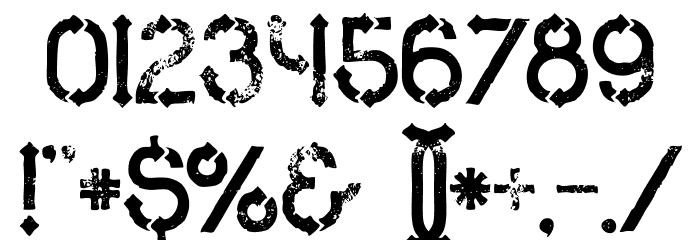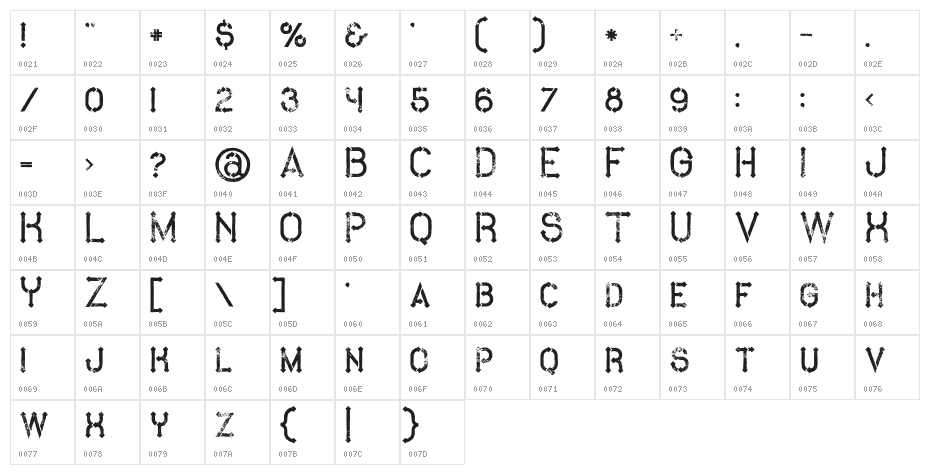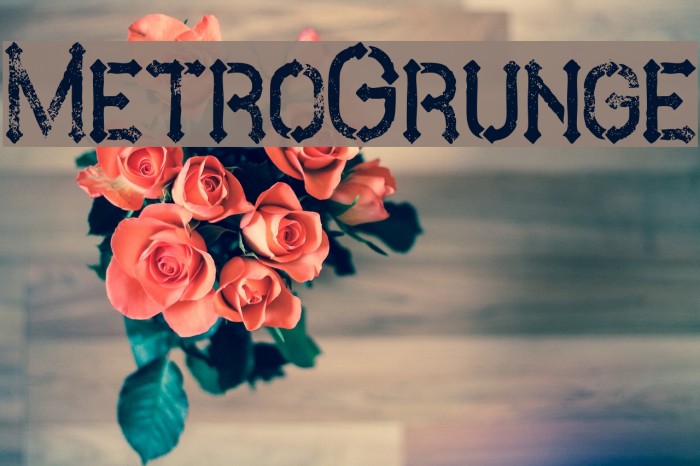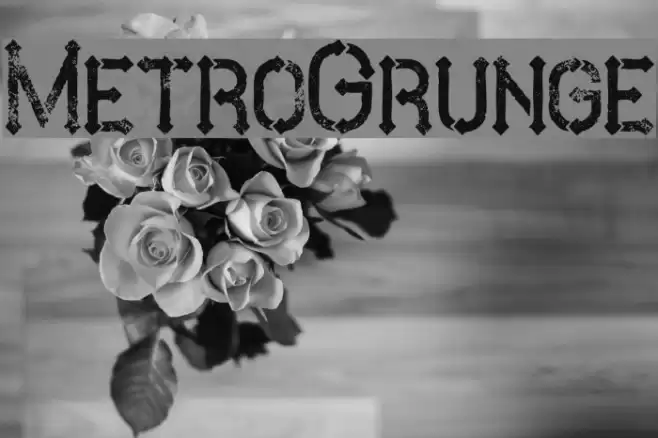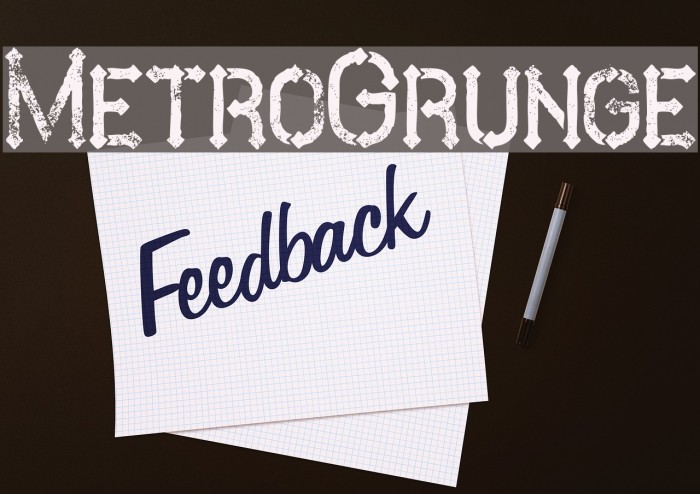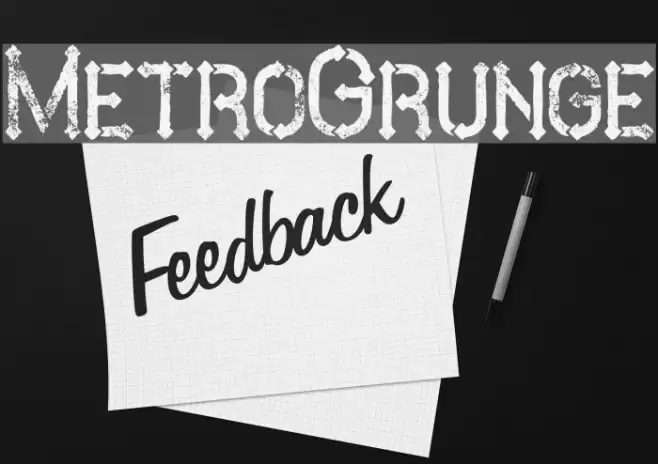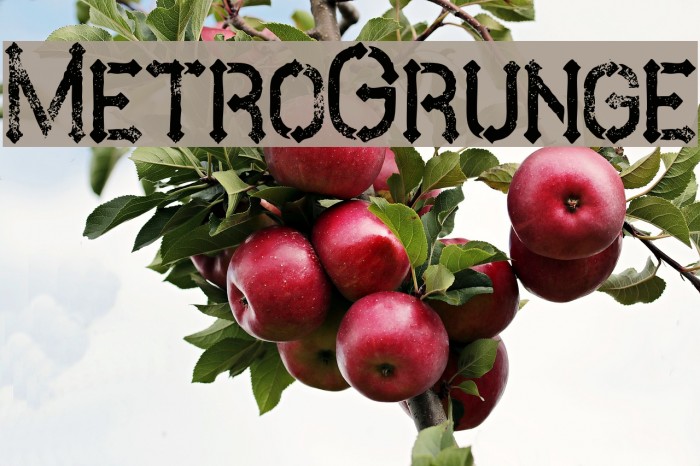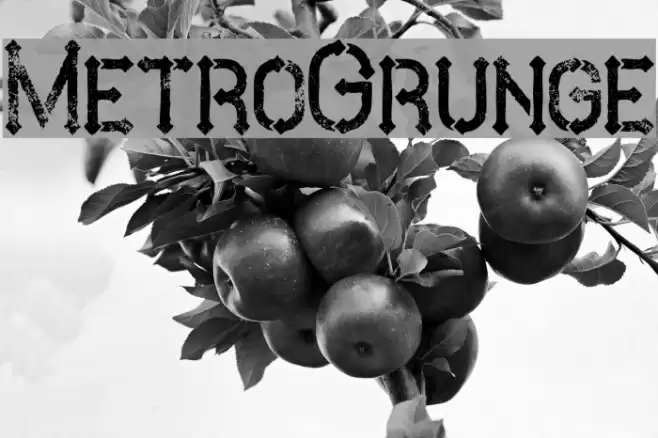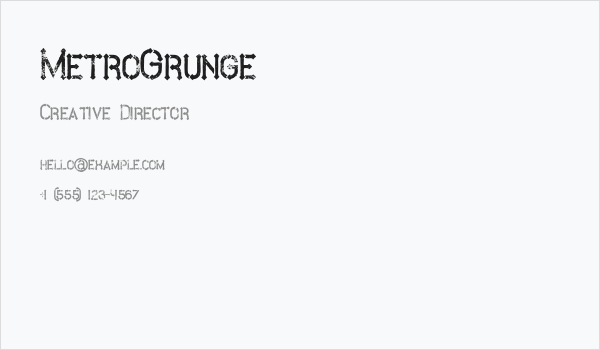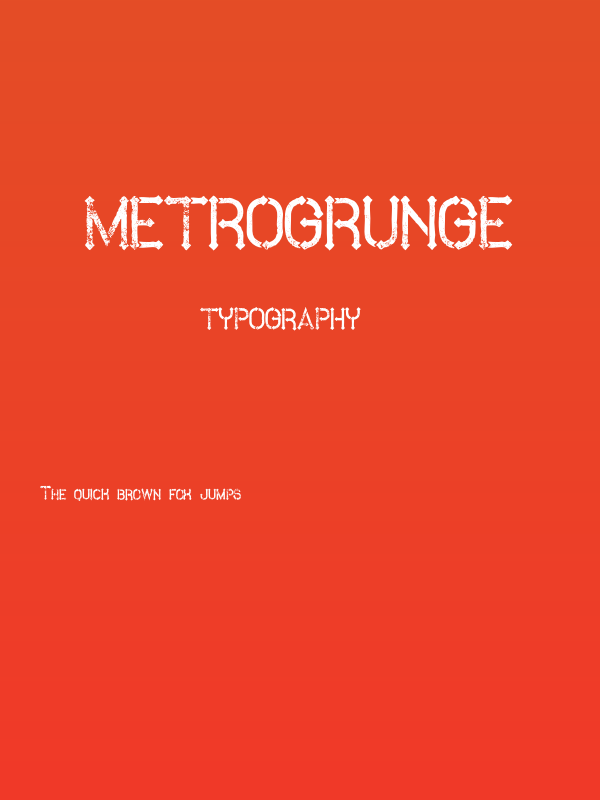
MetroGrunge Font
MetroGrunge Description
This font features a distressed, grunge aesthetic with a bold and rugged appearance. Each character is designed with a rough, textured edge that gives it a worn and weathered look, reminiscent of urban decay or industrial settings. The uppercase and lowercase letters maintain a consistent style, with angular lines and sharp corners that enhance the gritty feel. Numbers and special characters are equally distressed, ensuring a cohesive look across all text elements. This font is ideal for projects that require a raw, edgy vibe, such as music album covers, streetwear branding, or alternative event posters.
| Overall Style | Grunge, Urban, Industrial |
| Proposed Projects | Ideal for music album covers, streetwear branding, alternative event posters, and urban-themed designs. |